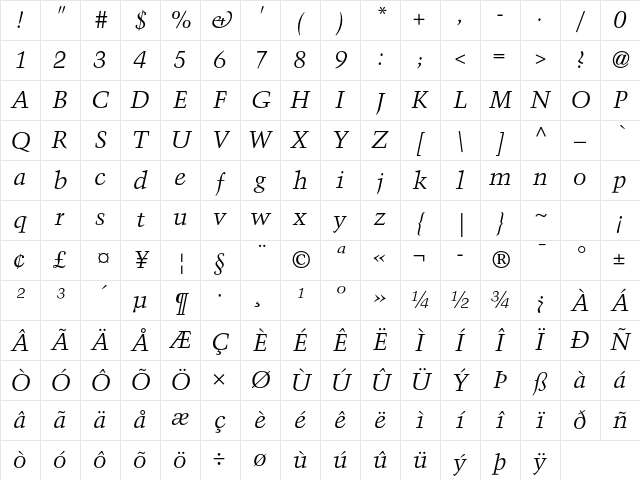
Trump Medival LT Std Italic Regular
Designer: Georg Trump
Design Context for Trump Medival LT Std Italic
Trump Medival LT Std Italic is a composed and adaptable typeface that performs quietly and consistently across a wide range of design contexts. The slanted form adds forward momentum and visual energy. Its slender proportions lend an understated elegance to any composition.
Pro Tip: Use Trump Medival LT Std Italic for emphasis, pull quotes, and subheadings where its slanted energy can add rhythm to the layout.